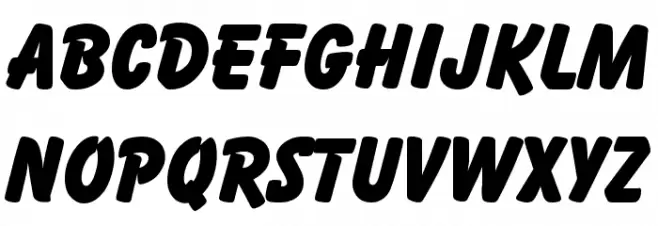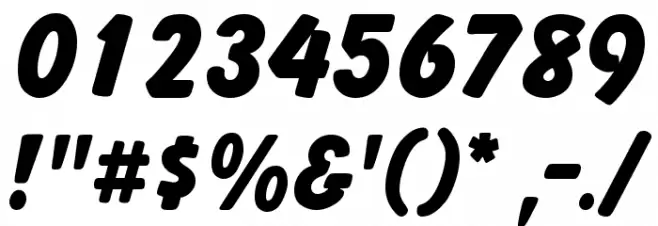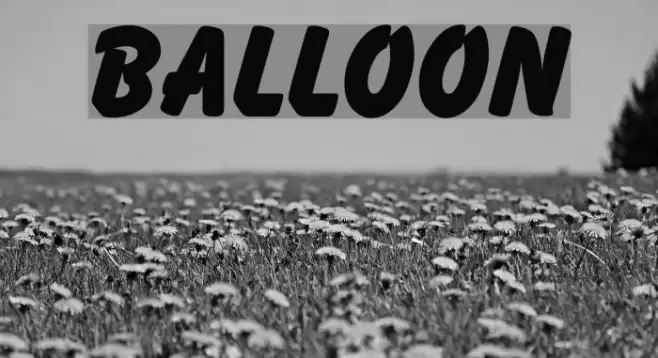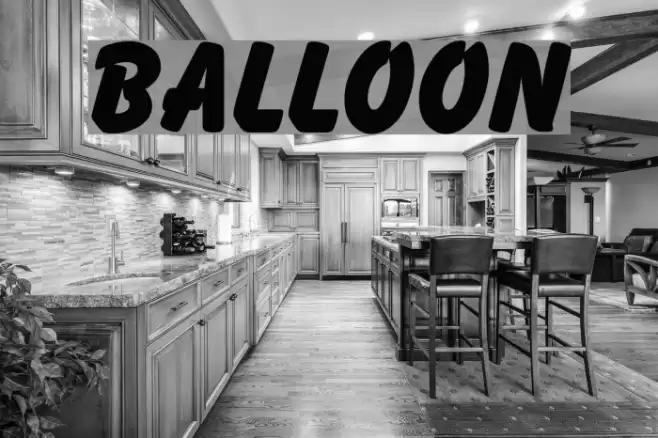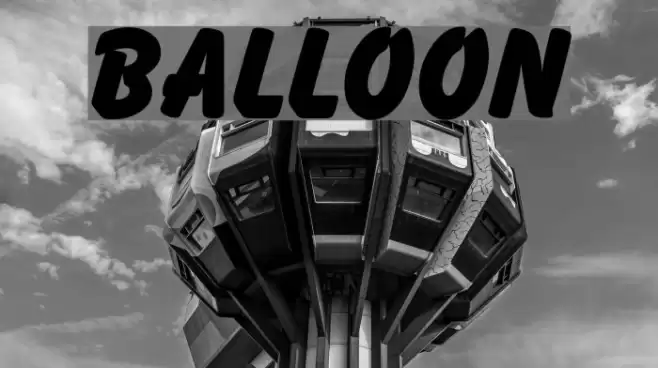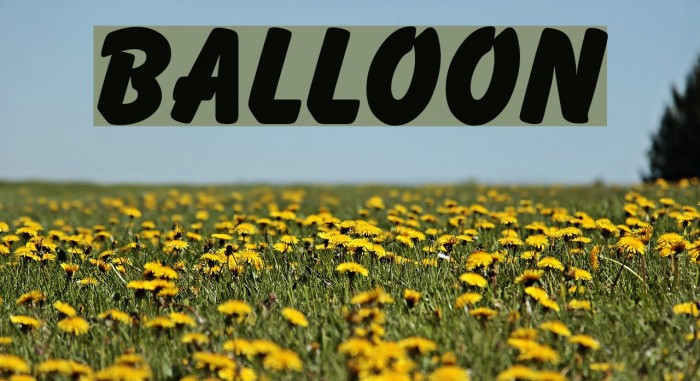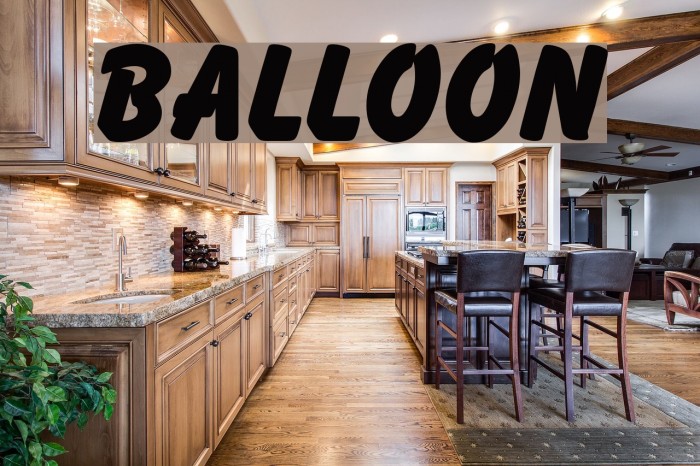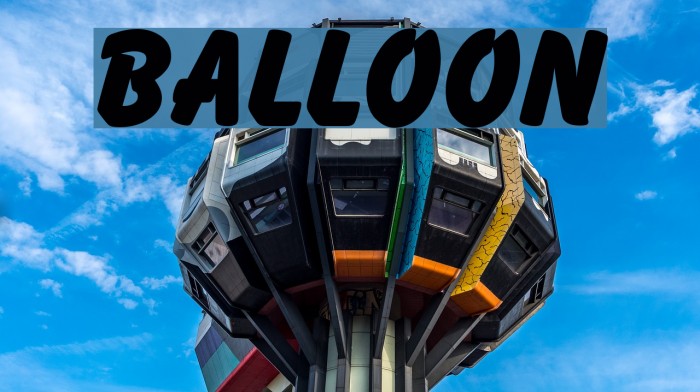
Balloon
This playful and bold font features rounded, balloon-like characters that convey a sense of fun and whimsy. The letters are thick and have a smooth, flowing style, reminiscent of inflated balloons. The uppercase and lowercase letters maintain a consistent weight, creating a cohesive look. The numbers and special characters are equally bold and rounded, ensuring uniformity across all glyphs. This font's unique style makes it stand out, perfect for projects that require a touch of lightheartedness and creativity.
A bold, playful font with rounded, balloon-like characters.
- Proposed Projects: Ideal for children's books, party invitations, playful branding, and any design needing a fun, whimsical touch.
- Overall Style: Playful, Whimsical
- Use Case: Headlines, Logos, Posters